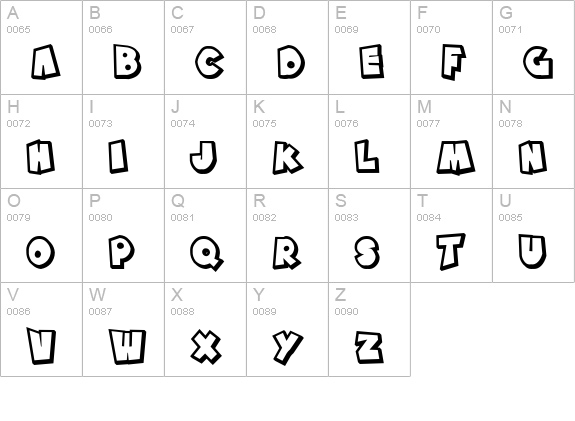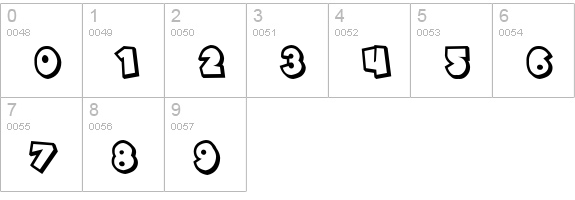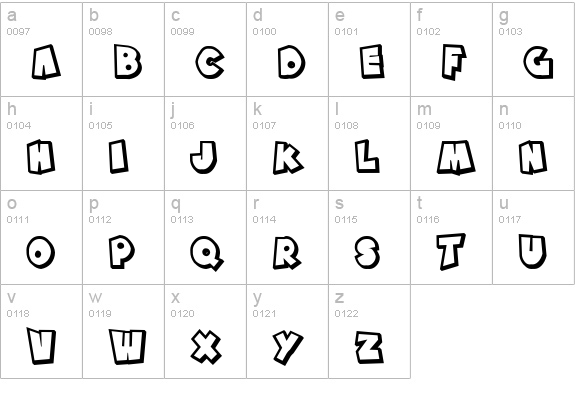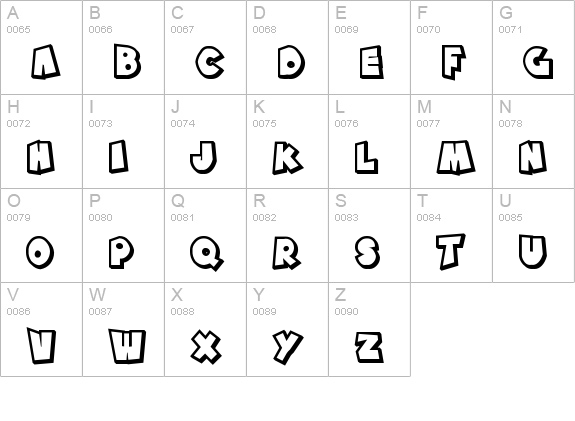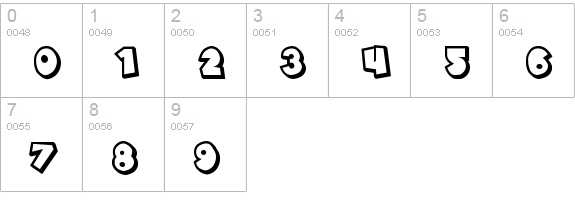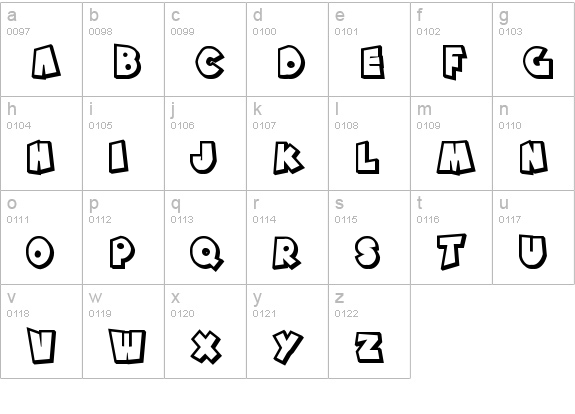
SF Pale Bottom Shaded Font Details
SF Pale Bottom Shaded is a stunning and versatile font that is sure to make a bold statement in any design project. This unique typeface features a captivating combination of pale colors and bottom shading, adding depth and dimension to your text. Whether you're creating eye-catching posters, captivating logos, or striking headlines, SF Pale Bottom Shaded will effortlessly elevate your designs to new heights. With its clean lines and contemporary aesthetic, this font is perfect for both digital and print applications. Its crisp and legible characters make it easy to read, ensuring that your message will be effectively communicated to your audience. The carefully crafted shading at the bottom of each letter adds a touch of elegance and sophistication, making SF Pale Bottom Shaded a standout choice for any project. One of the best things about SF Pale Bottom Shaded is that it is freely available to download at FontsMarket.com. This means that you can easily access and use this font in your designs without any hassle or cost. Whether you're a professional designer or a hobbyist, this free font will be a valuable addition to your collection. So why wait? Take your designs to the next level with SF Pale Bottom Shaded. Download it for free at FontsMarket.com and let your creativity soar.